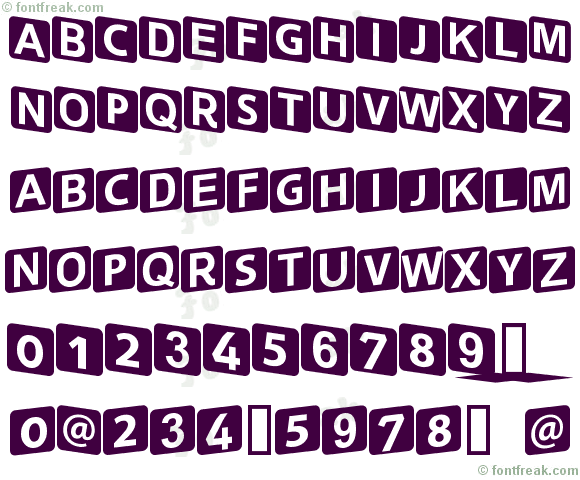
square kids
About square kids
Square Kids by Grafito Design is a playful, decorative font that perfectly captures the essence of youthful creativity. Released in 2011 by designer Raúl Pérez, this font features a unique square-shaped design, making it an ideal choice for projects aimed at children or those with a whimsical theme. The font boasts a medium stroke weight with minimal contrast, providing a bold and legible appearance that is easy to read from a distance. The rounded corners and consistent spacing give Square Kids an approachable and friendly vibe, making it perfect for various applications.
This font excels in several use cases. It's particularly suitable for children’s book covers, where its fun and engaging style can attract young readers. Additionally, Square Kids can be effectively used in educational materials, helping to create a stimulating learning environment. Graphic designers may find it perfect for crafting vibrant posters or flyers for children’s events, such as birthday parties or festivals. It also shines in digital platforms, being an excellent choice for websites and apps targeting a younger demographic. Small business owners can leverage this font in branding and marketing materials to appeal to families and children.
The target audience for Square Kids includes graphic designers, small business owners, educators, and content creators who value a youthful and cheerful aesthetic. With its unique visual characteristics and versatile applications, the Square Kids font free download offers a valuable resource for anyone looking to add a touch of playfulness to their projects. Its distinctive square shapes and friendly design make it stand out in a crowded font market, ensuring that it captures attention and inspires creativity. Whether you're designing for kids or simply want to evoke a sense of joy, Square Kids is a delightful choice.